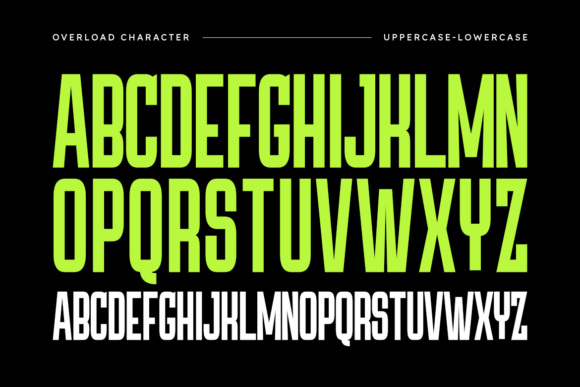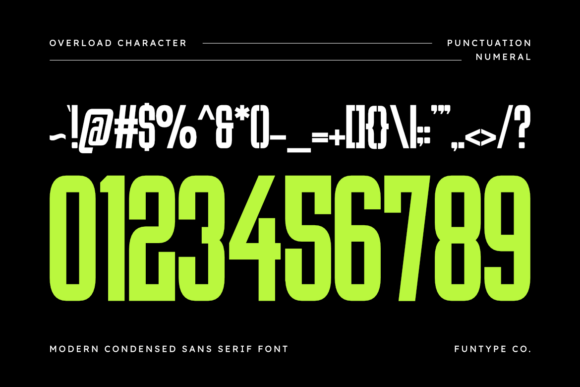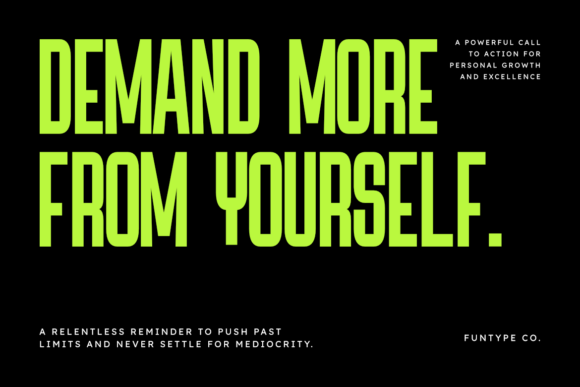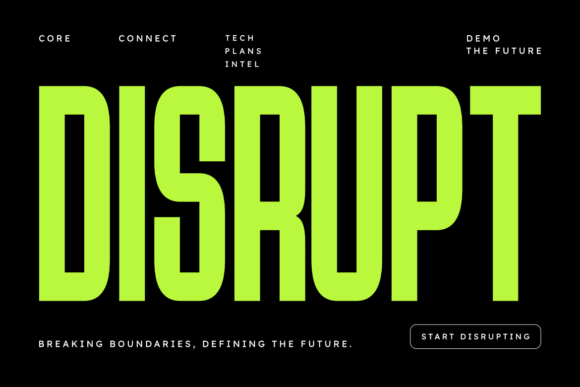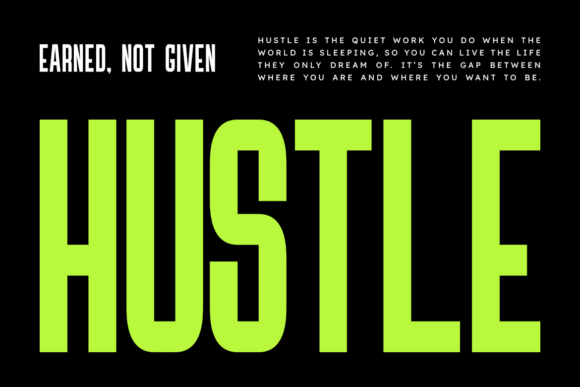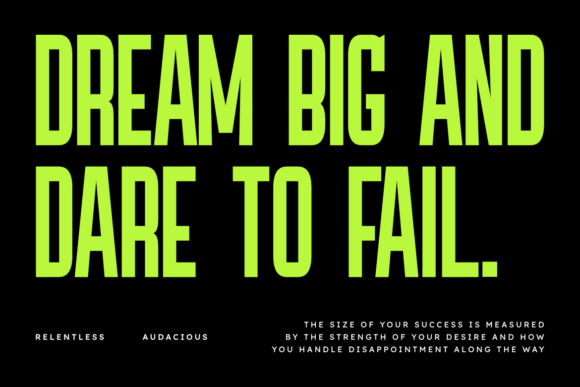
Introduction to Overlord Font
Imagine you’re in the middle of a creative project, staring at a blank screen, trying to come up with the perfect design element to grab your audience’s attention. Suddenly, the idea strikes – a bold, striking font that screams “I’m here!” The Overlord Font is that game-changing element, a commanding extra condensed sans serif typeface designed to make a lasting impression in high-impact visual communication.
As a designer, you know that a well-chosen font can elevate your entire project, making it stand out from the crowd. The Overlord Font delivers a powerful industrial aesthetic, perfect for massive headlines, bold branding, and modern editorial designs. With its ultra-tall structure and tightly packed letterforms, this All Caps display font is optimized for global projects, from aggressive sports graphics to cutting-edge tech identities.
What sets the Overlord Font apart is its versatility and high quality, making it an invaluable design resource for any creative project. Whether you’re working on a free download or a commercial design, this font’s integrated Multilingual Support ensures that your message reaches a global audience, no matter the language. And with its transparent background option, you can easily customize it to fit your design needs.
Key Features of Overlord Font
- Unique and bold design ideal for creative projects, making it a valuable design resource.
- Features a transparent background, allowing for seamless integration with any design.
- Perfect for use in logos, branding materials, and other creative projects where a strong, bold font is required.
Honest Review: Overlord Font
As a designer, I’m always on the lookout for high-quality fonts to elevate my creative projects. The Overlord Font caught my attention, and I decided to give it a try. Here’s my honest review.
What works well: ✨ The Overlord Font has a unique, futuristic design that’s perfect for sci-fi or tech-related projects. The font is highly customizable, allowing you to adjust the opacity and transparency to achieve a seamless look. The transparent background feature is particularly useful when working with graphics or design elements that require a clean, minimalist aesthetic.
- High-quality design: The font is well-designed and scalable, ensuring it looks great on a variety of devices and screen sizes.
- Design resource: The Overlord Font is a great addition to any designer’s toolkit, offering a fresh and modern look for creative projects.
Limitations: ⚠️ While the Overlord Font is generally high-quality, I found that the font’s bold weight can sometimes be a bit too aggressive, overpowering other design elements. Additionally, the font may not be suitable for projects requiring a more traditional or classic look.
Overall impression: The Overlord Font is a solid choice for designers seeking a unique and modern font for their creative projects. Its high-quality design, customizable features, and free download make it a valuable resource for designers of all levels.
Experiment with different font sizes, colors, and combinations to create a unique look for your design project. Use the transparent background version to create a clean and minimalist design. You can also pair the Overlord Font with other design resources to create a cohesive look.
The Overlord Font is ideal for creative projects that require a bold, edgy look. Use it for logos, branding materials, or any design element that needs to stand out. It’s also great for designing posters, flyers, or social media graphics.